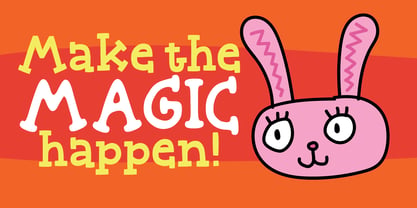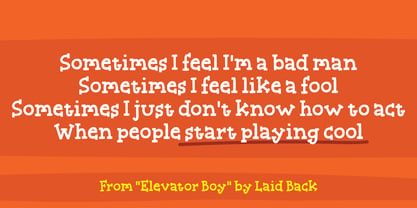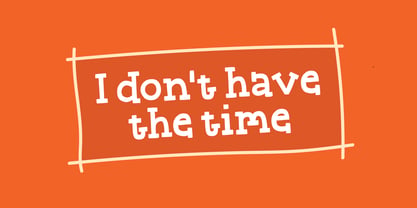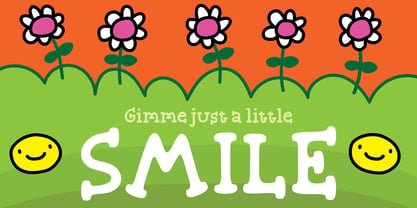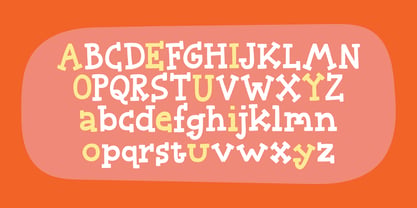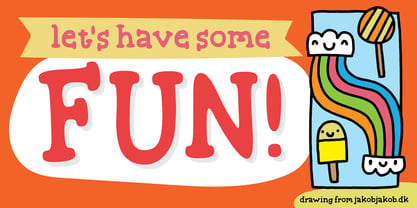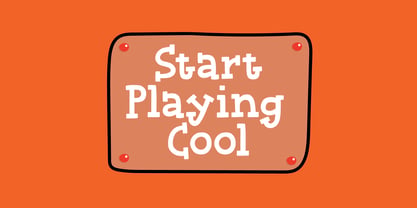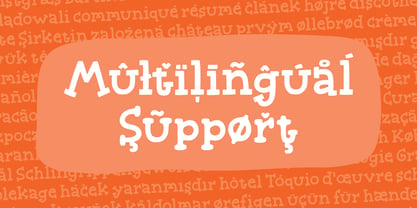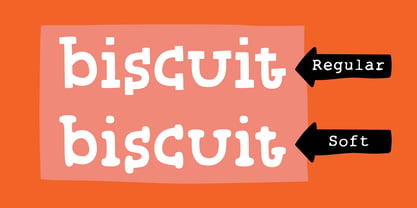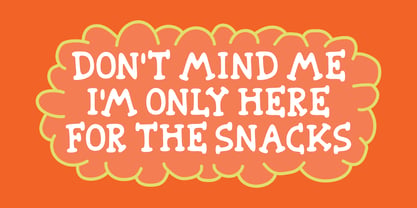
Start Playing Cool
The Start Playing Cool Font Family was designed by Jakob Fischer and published by PizzaDude.dk. Start Playing Cool contains 4 styles and family package options. More about this family
“Start Playing Cool” is my playful blend of handmade charm, organic shapes, and comic-inspired energy. Every letter feels slightly unique, giving the typeface a natural, hand-drawn personality that avoids looking rigid or mechanical. The chunky forms, quirky angles, and friendly curves create a fun and approachable look, while the uneven details add warmth and character. Its whimsical style makes it perfect for children’s products, comic books, greeting cards, packaging, posters, and cheerful branding.
Features:
I have included the Standard Ligatures - the well-known ligatures such as ff, fi, fl, ffi, ffl
Subscript and Superscript
Normally typedesigners resizes the numbers to make Subscript and Superscript. I do that on occasions as well, but in this case I have drawn the numbers, instead of resizing them. That way they appear more natural, organic and unique.
Fractions are nice having available. You skip the work of resizing the numbers yourself, because I have done all the work for you!
Multilingual support
This font comes with extensive multilingual support, and supports loads of different languages.
Designers: Jakob Fischer